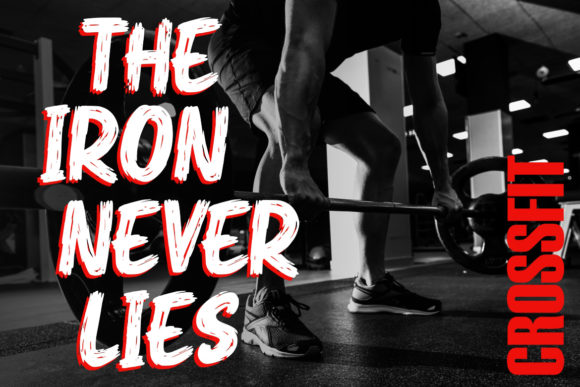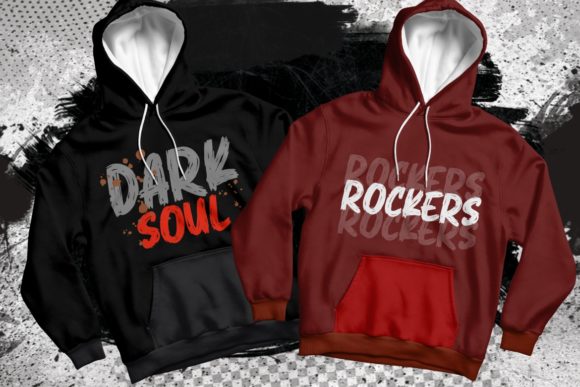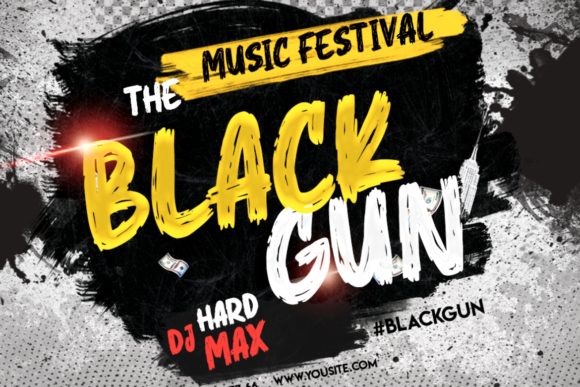
Introduction to Grunge! Font
Grunge.
is a bold and chunky display font, designed with the help of a brush pen This versatility will appeal to a wide range of crafty ideas, from letterheads and titles, to stationery.
Key Features of Grunge! Font
Why Choose Grunge! Font?